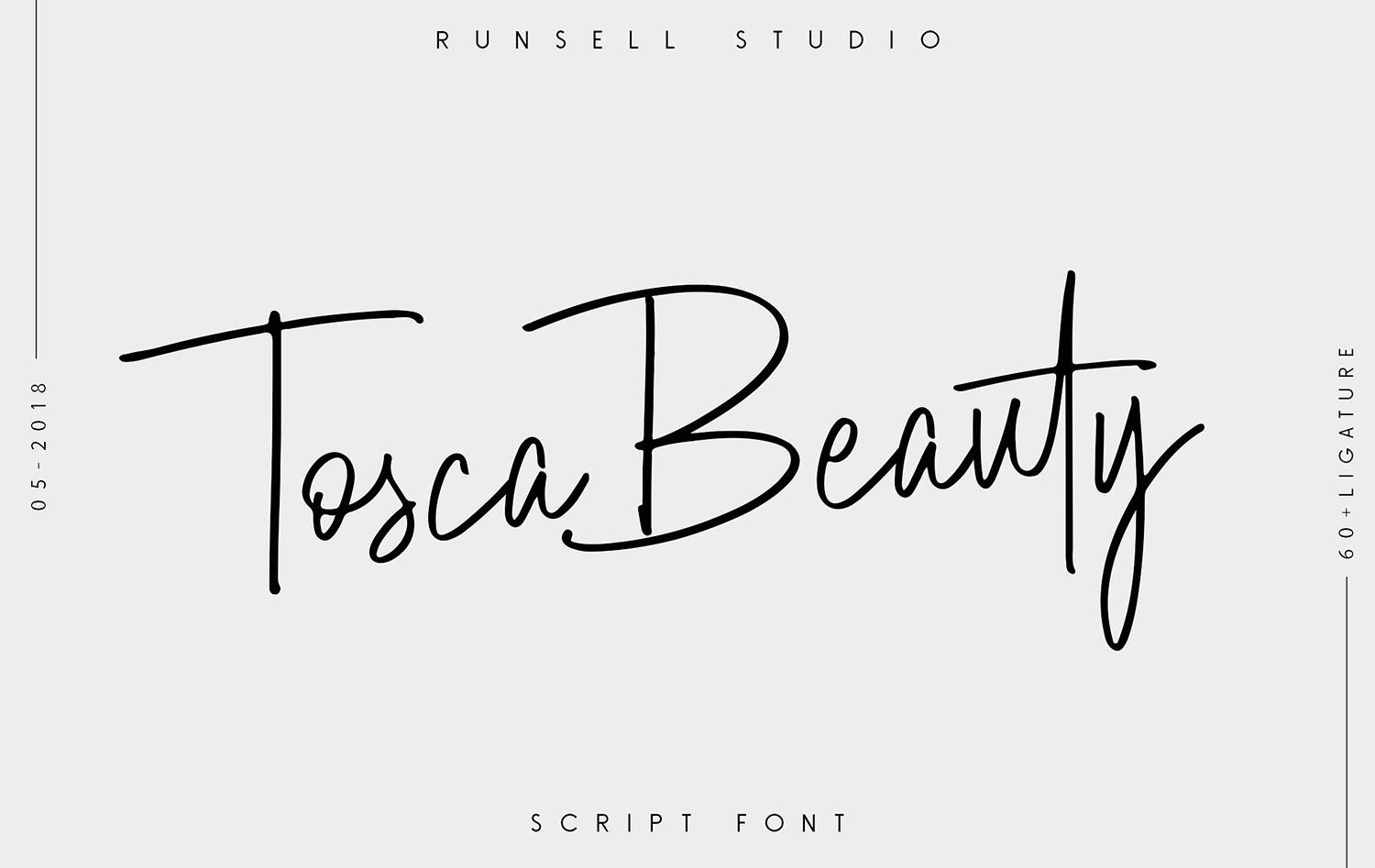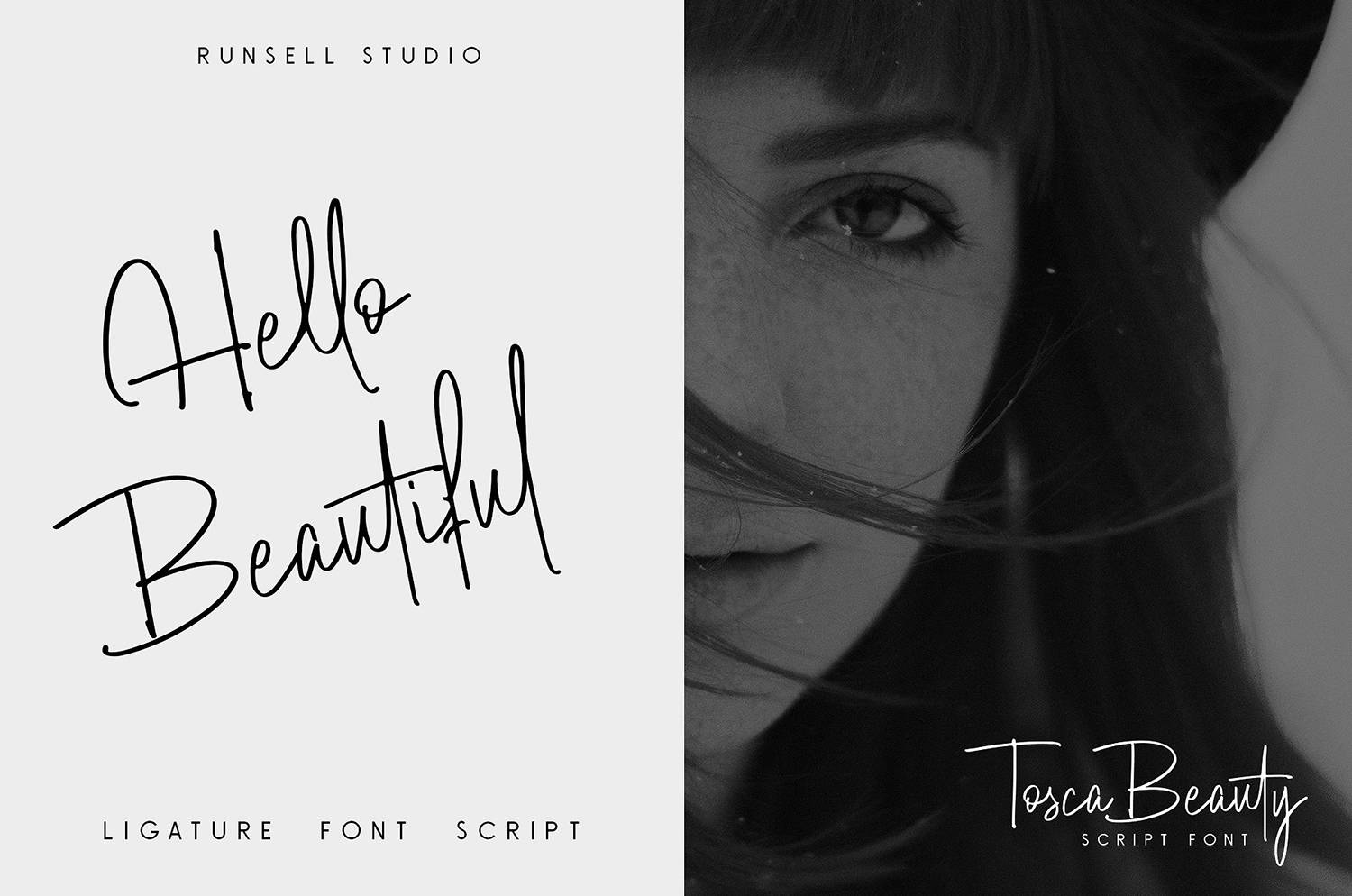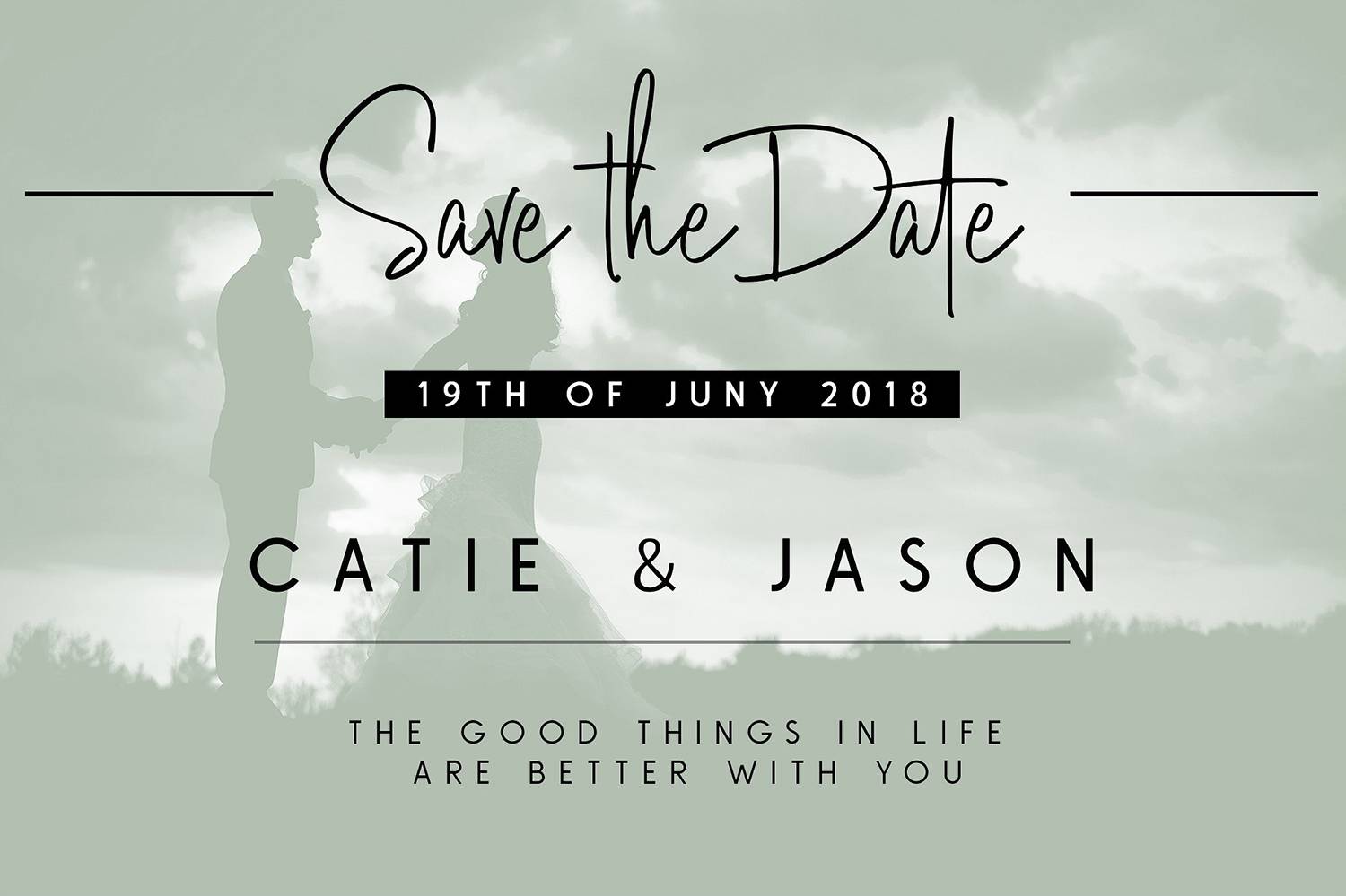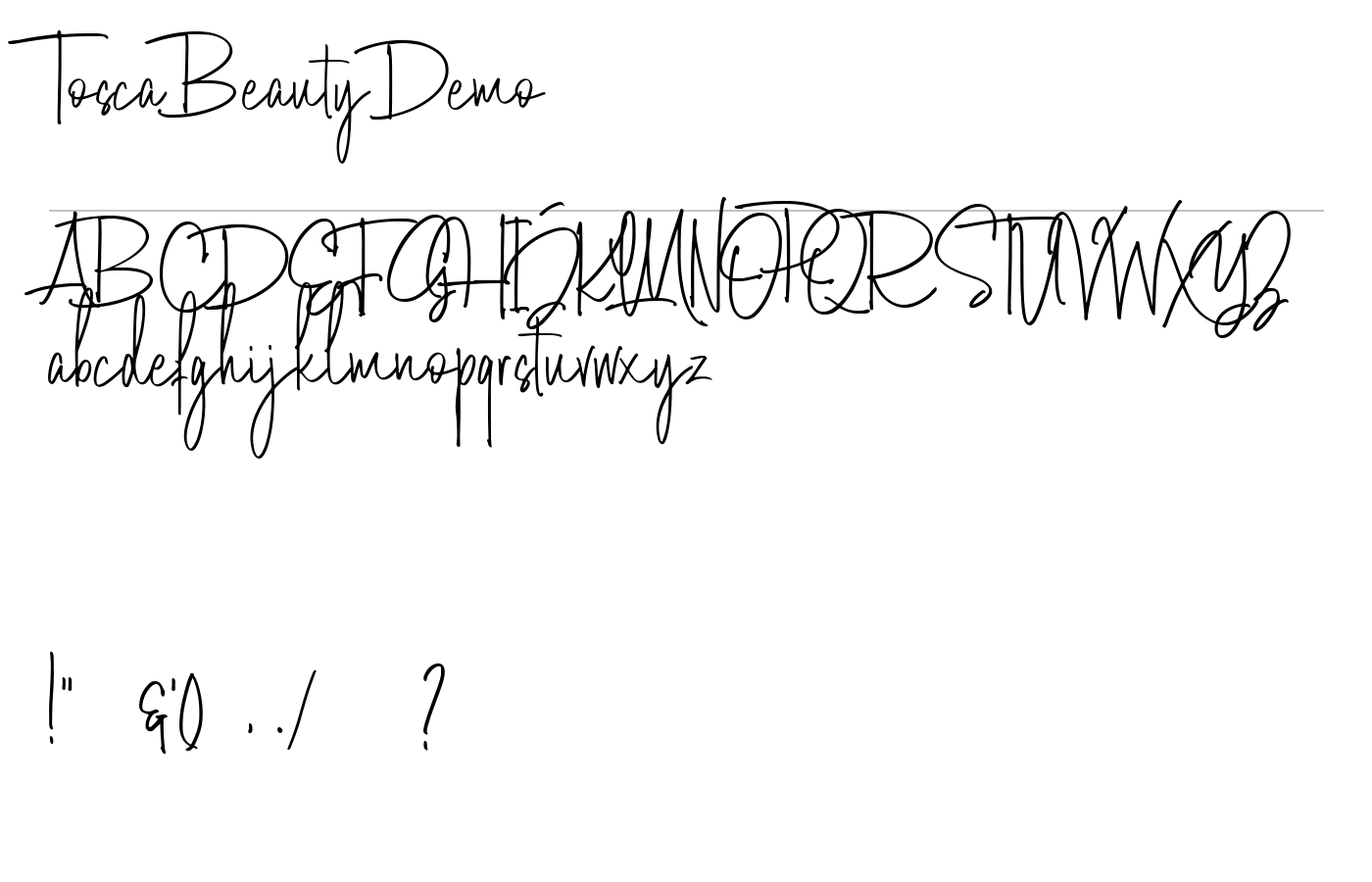
Tosca Beauty is a delicate, handwritten script font with a tall, narrow structure and whimsical, flowing strokes that give it an elegant yet casual feel. Its thin lines and playful loops make it perfect for beauty, fashion, and lifestyle branding where a personal, sophisticated touch is desired. This font shines in logos, invitations, and editorial headlines where style and uniqueness are key.
Tosca Beauty Font
About Tosca Beauty Font